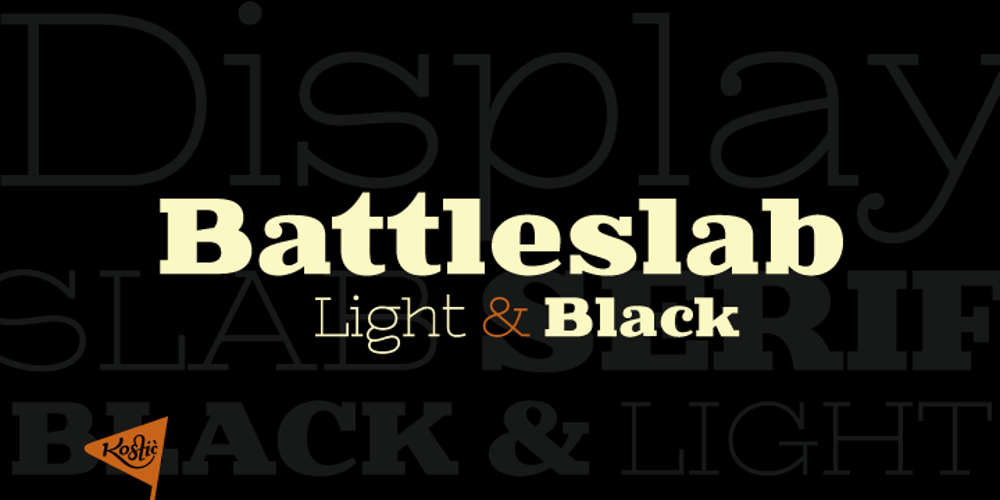
Battleslab
Battleslab font
Battleslab Font Family was designed by Nikola Kostić and published by Kostic. Battleslab contains 2 styles and family package options. Battleslab is a slab serif made for setting few words in large sizes. Two heavily contrasted weights work well when combined, with its mono-line wide light and heavy black it is perfect for making that “one-two punch” in headlines or logotypes. Display oriented Battleslab derived from Battlefin Family (which is much more comprehensive with its ligatures, italics and SC).